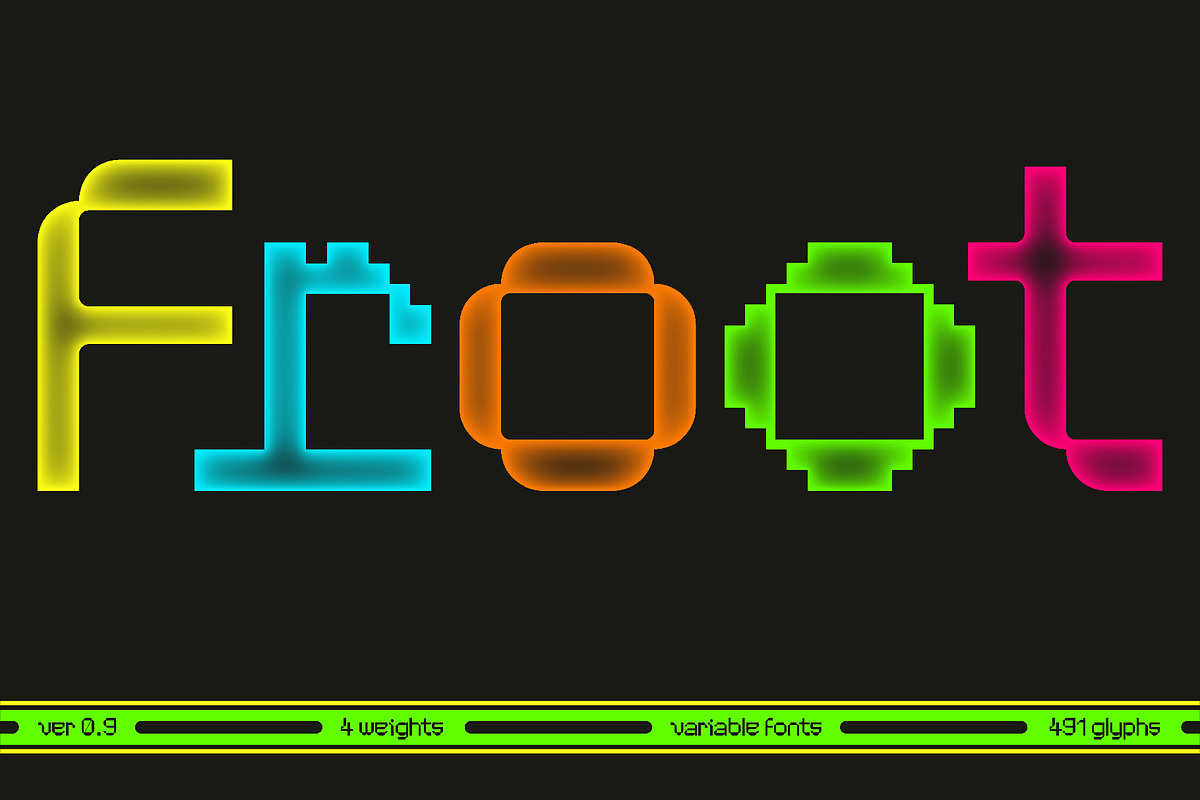
Froot Full Family
NGT Froot is a display typeface born in the age of pixelation. Using basic curves & geometry, these elements can be transformed into pixels with the power of variable fonts.